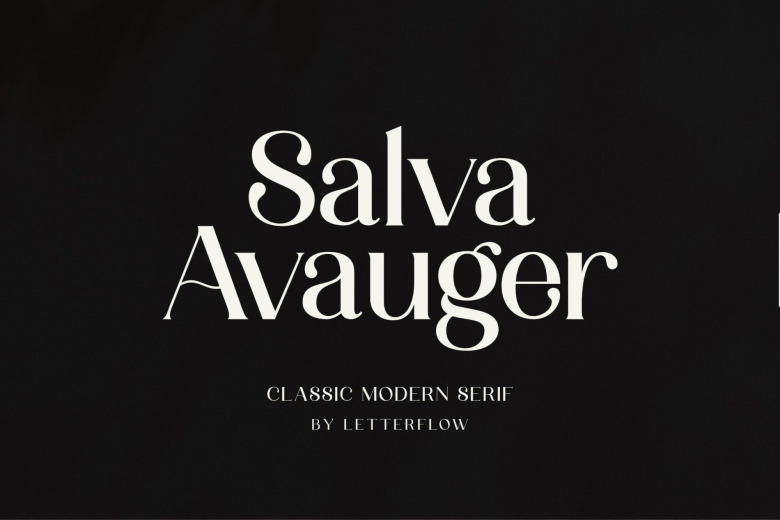
Salva Avauger Font
Salva Avauger a bold classical serif font. Whatever the subject, this typeface will be a serious gem in the font chest, turning around any production it adorns.
Salva Avauger Serif Font